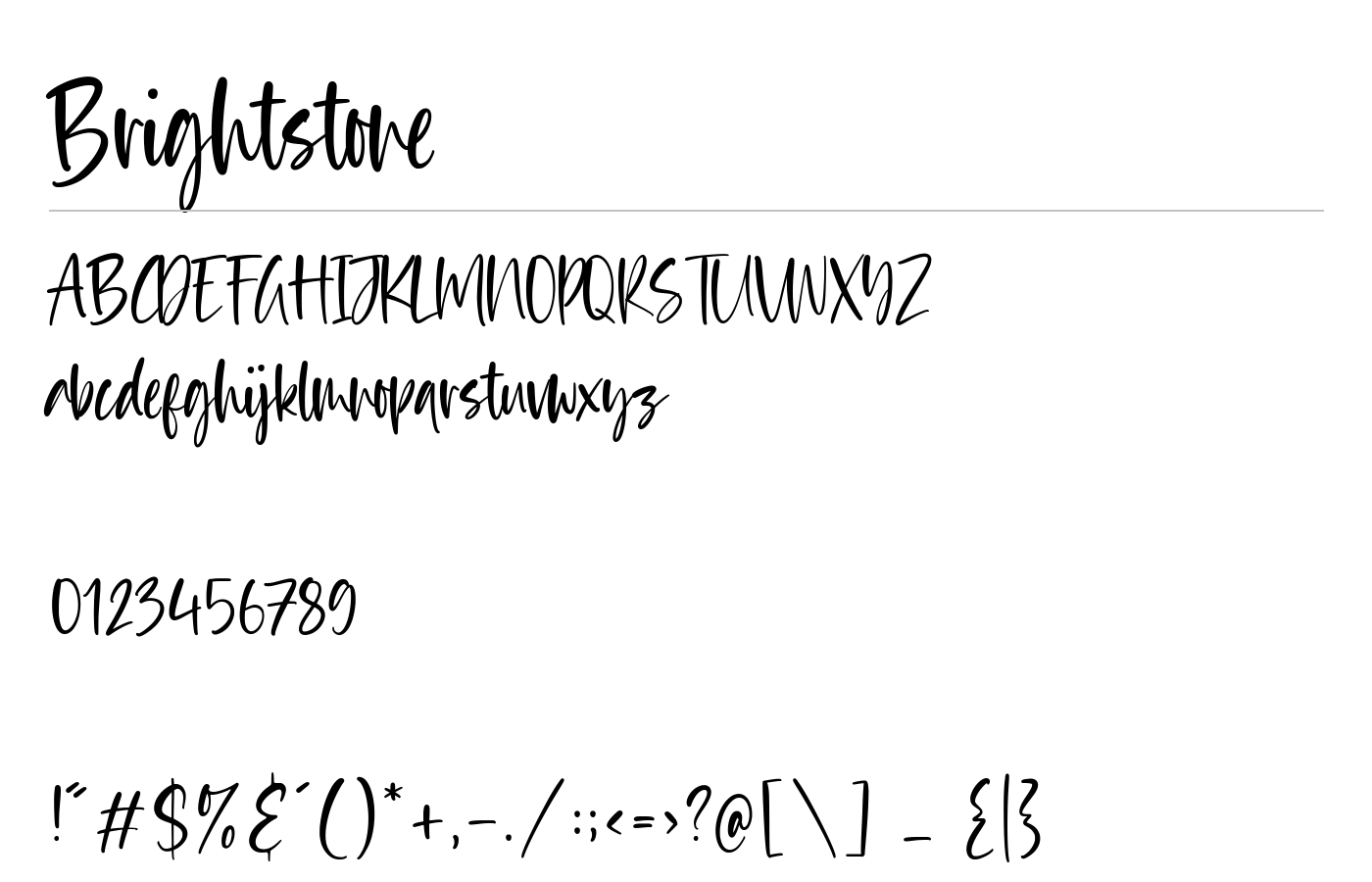
Brightstone is a playful and modern handwritten script font that combines a casual, friendly feel with elegant, tall letterforms. Its slender, slightly irregular strokes give it an approachable yet stylish character, making it ideal for creative branding, invitations, and lifestyle projects that want to convey warmth and personality. This font works well in headlines or display text where a personal and distinctive touch is desired.
Brightstone Font
About Brightstone Font